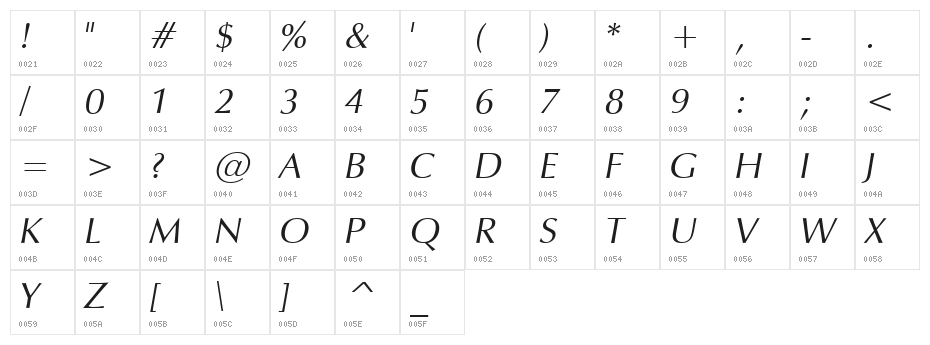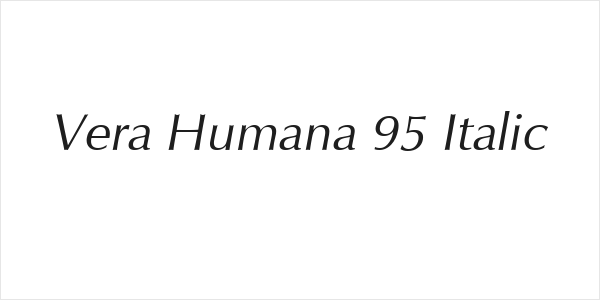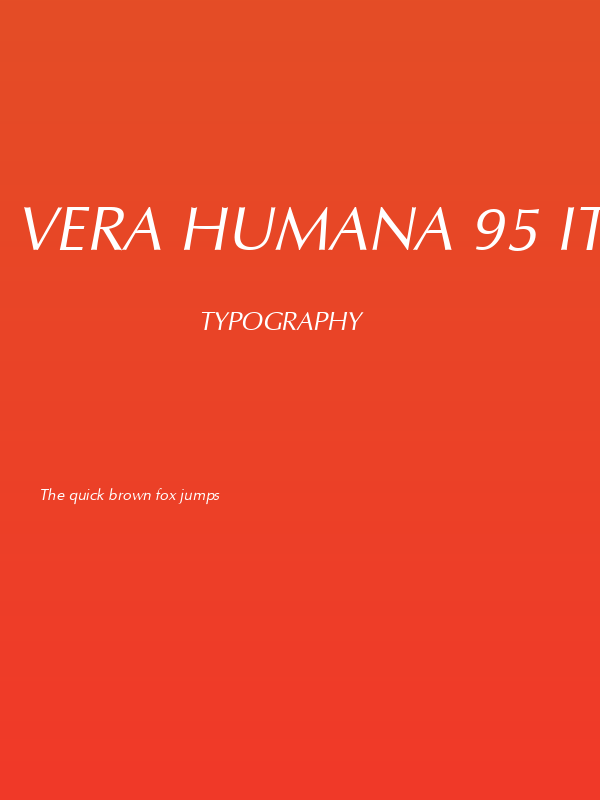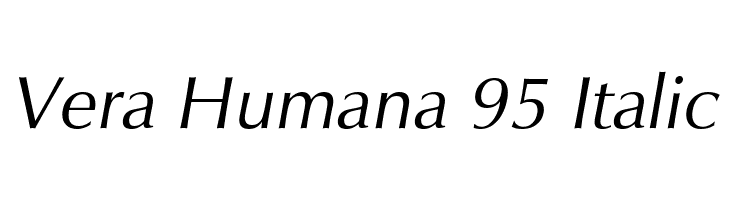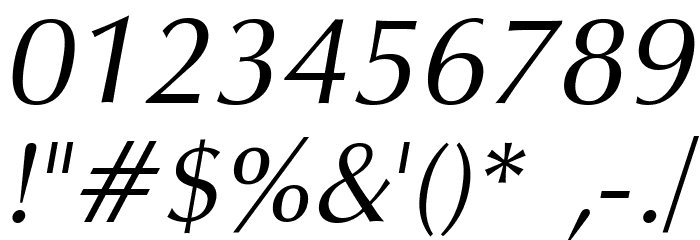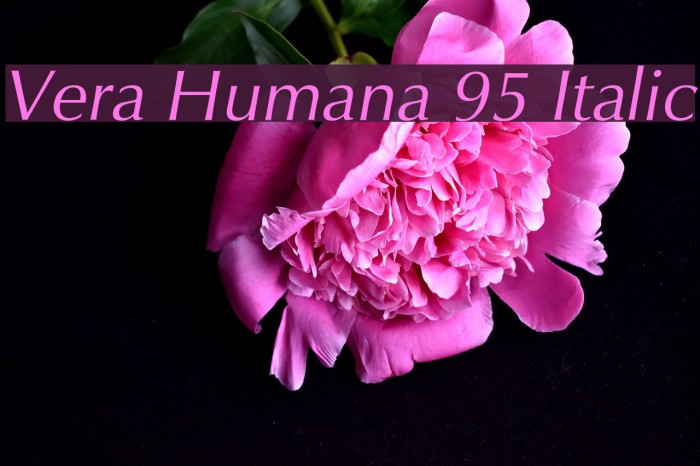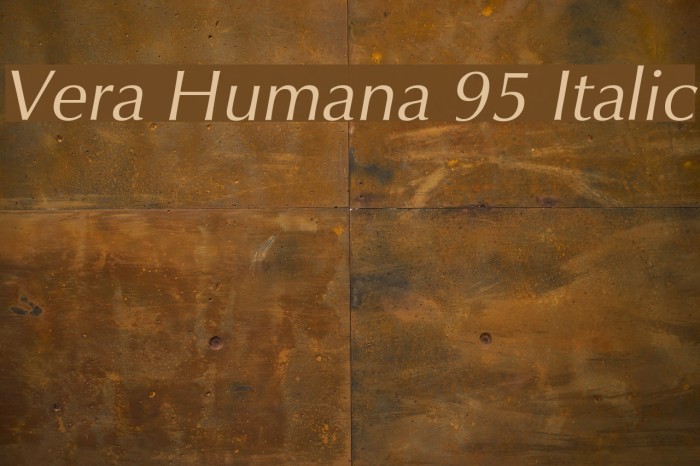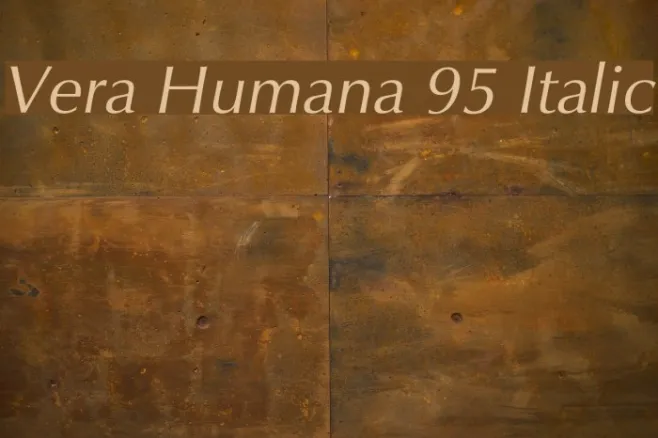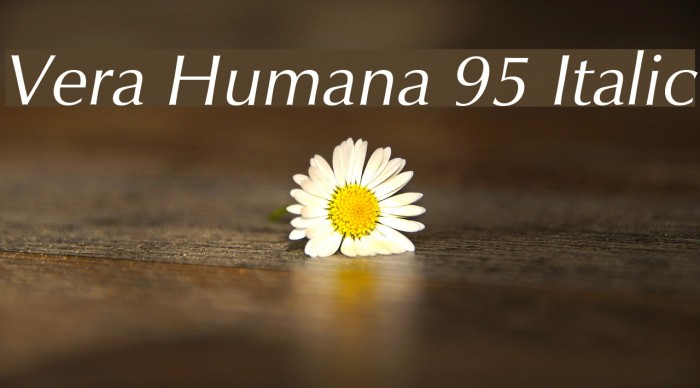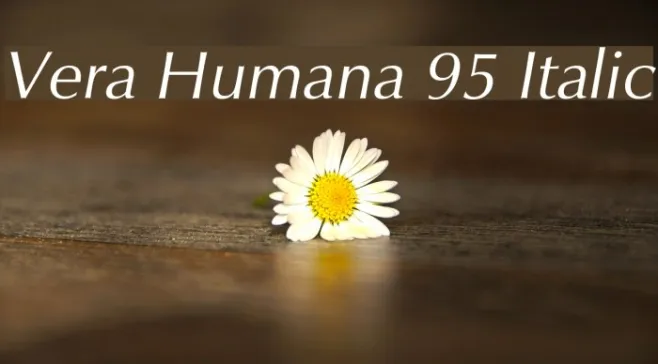
Vera Humana 95 Italic Font
Vera Humana 95 Italic Description
This font features a sleek and elegant italic style, characterized by its smooth curves and refined angles. The uppercase letters exhibit a graceful slant, while the lowercase letters maintain a consistent flow, enhancing readability. The numerals are well-proportioned, complementing the overall aesthetic. Special characters are thoughtfully designed, ensuring versatility across various applications. The font's sophisticated appearance makes it suitable for both formal and creative projects, offering a modern yet timeless appeal.